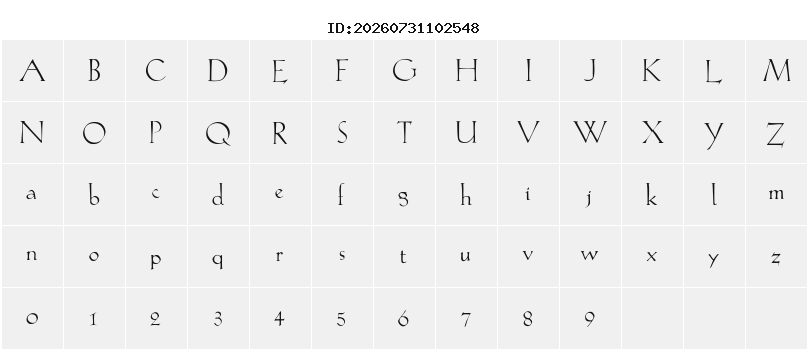
Lilith-Light Preview
• Font Name: Lilith-Light
• Full Font Name: Lilith-Light
• PostScript Name: Lilith-Light
About Lilith-Light.ttf
Lilith-Light.ttf is a modern, elegant sans-serif font designed for ultimate readability and visual harmony. Perfect for branding, headlines, web design, and print materials.